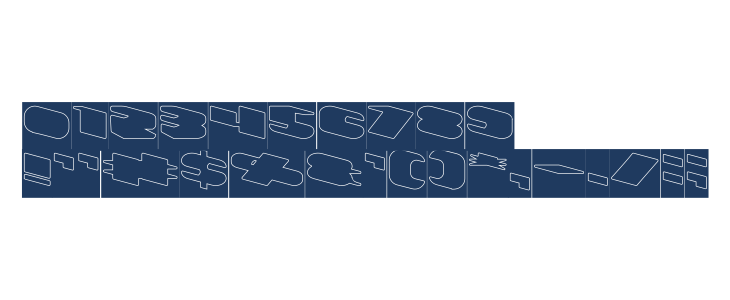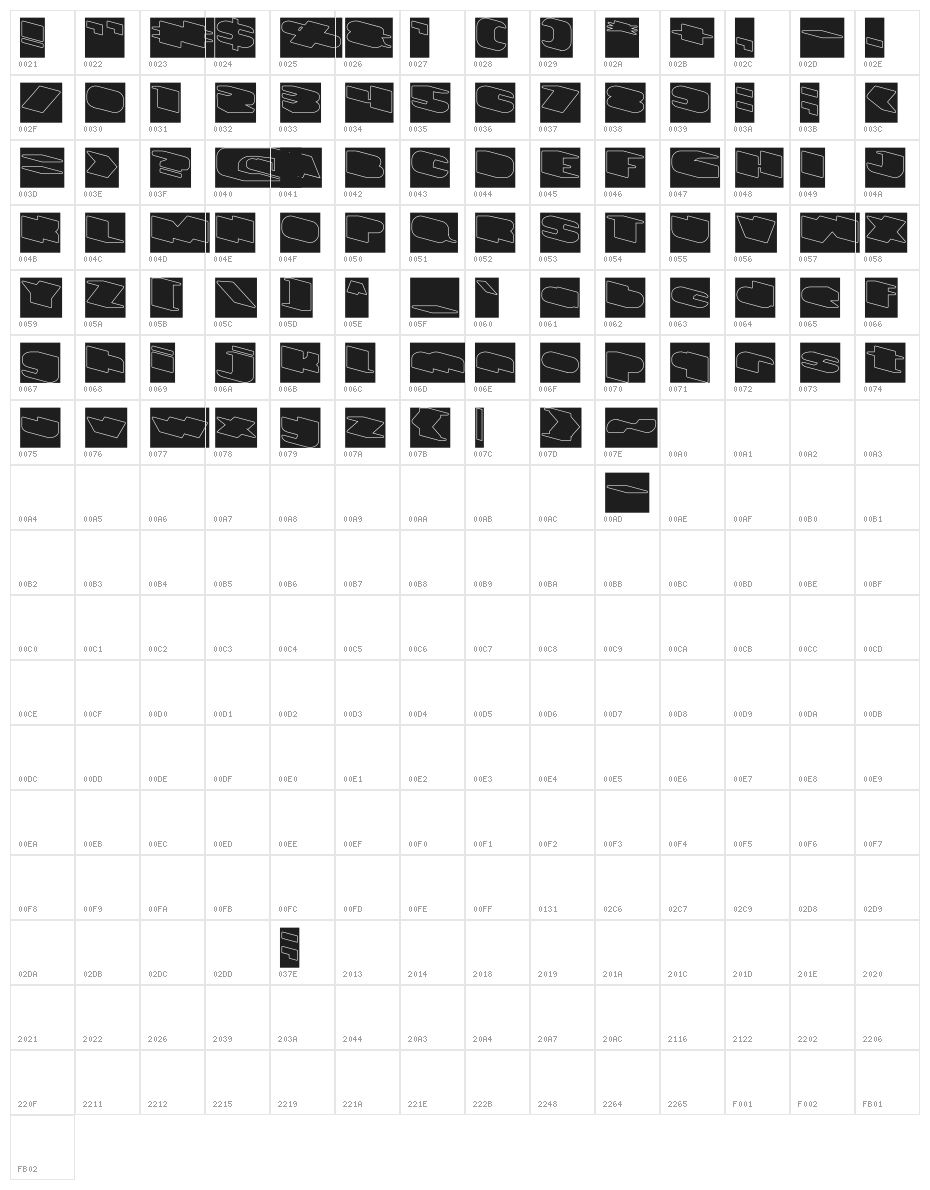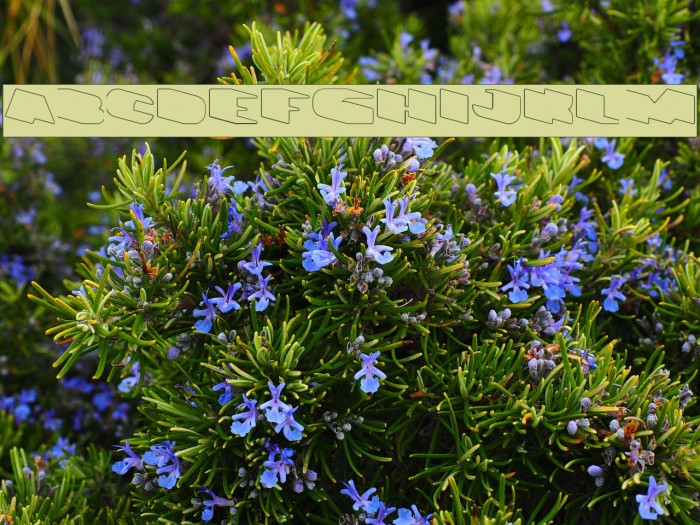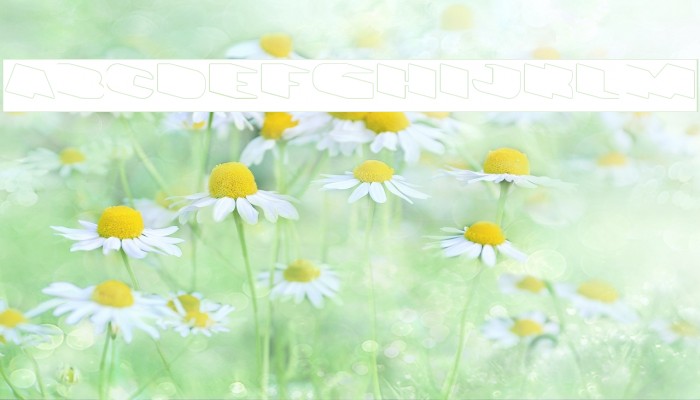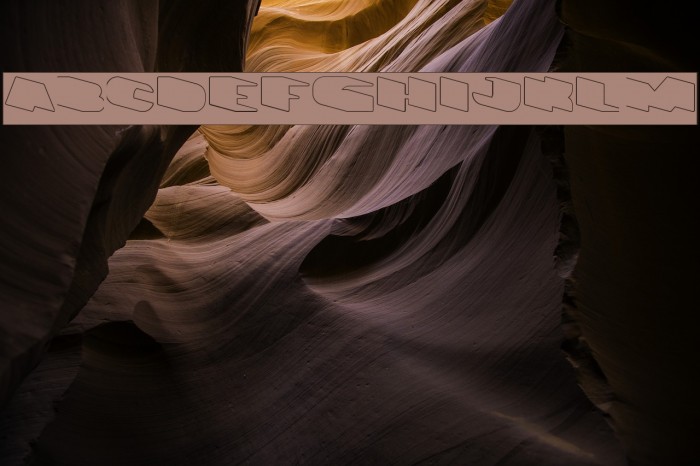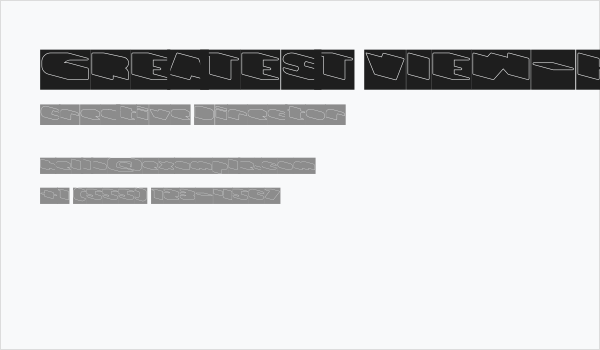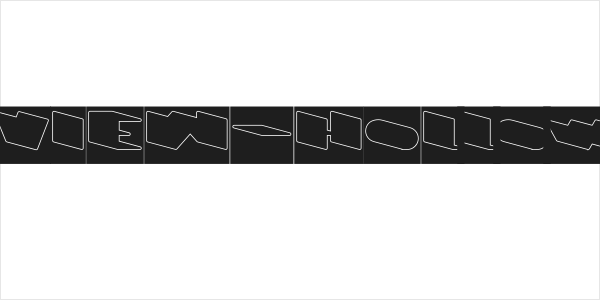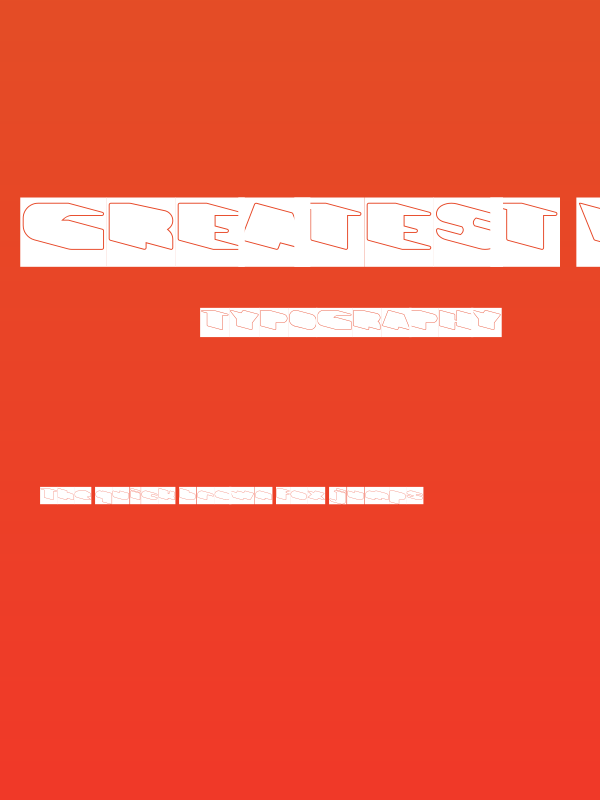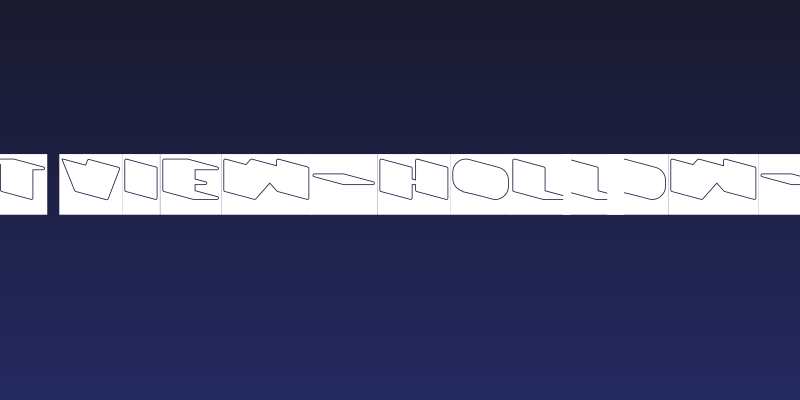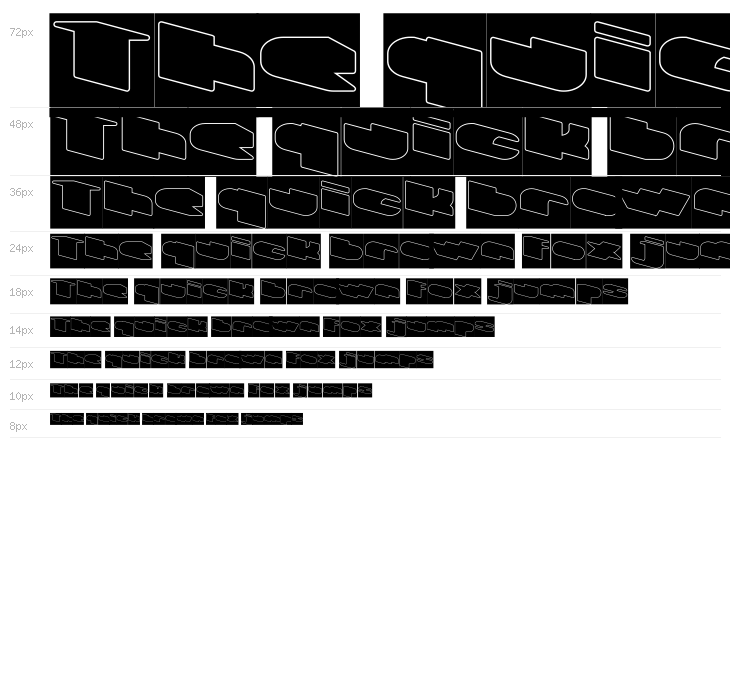
GREATEST VIEW-Hollow-Inverse Font
GREATEST VIEW-Hollow-Inverse Description
This font features a bold, hollow design with an inverse style, where the interior of each character is cut out, creating a striking visual effect. The characters are angular and geometric, with sharp edges and a modern aesthetic. The uppercase and lowercase letters maintain a consistent style, while the numbers and special characters complement the overall design. This font's unique hollow appearance makes it ideal for eye-catching displays and creative projects.
| Proposed Projects | Ideal for posters, logos, and headlines that require a bold and modern look. |